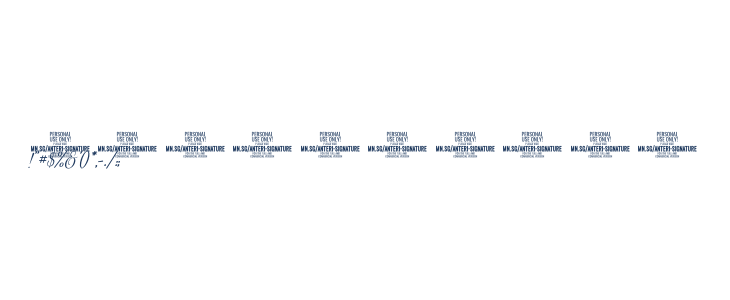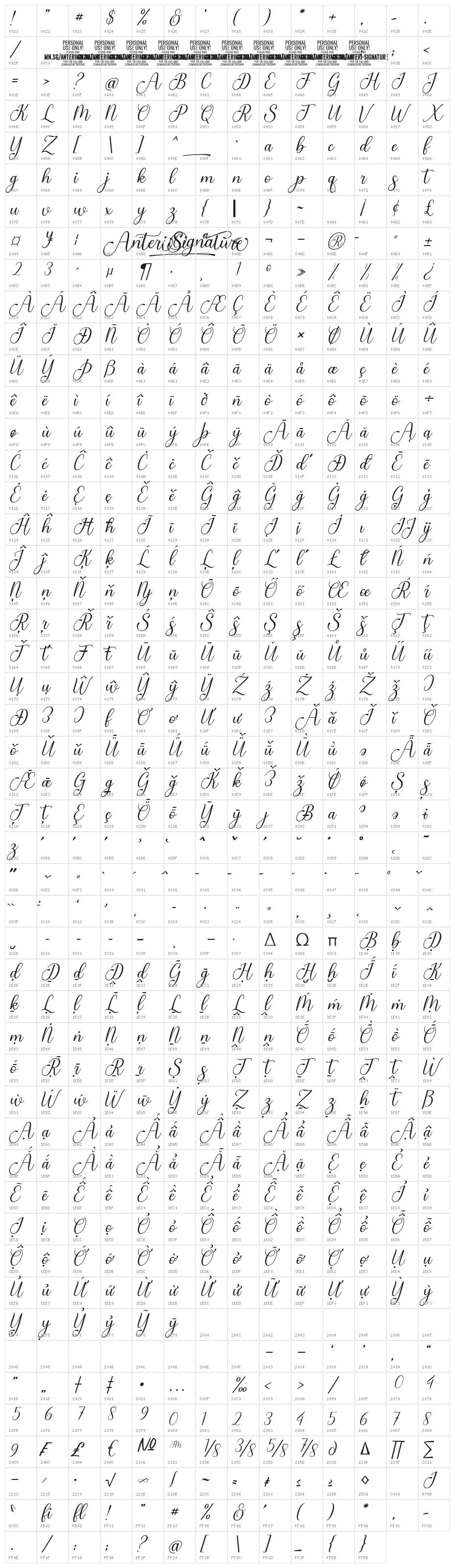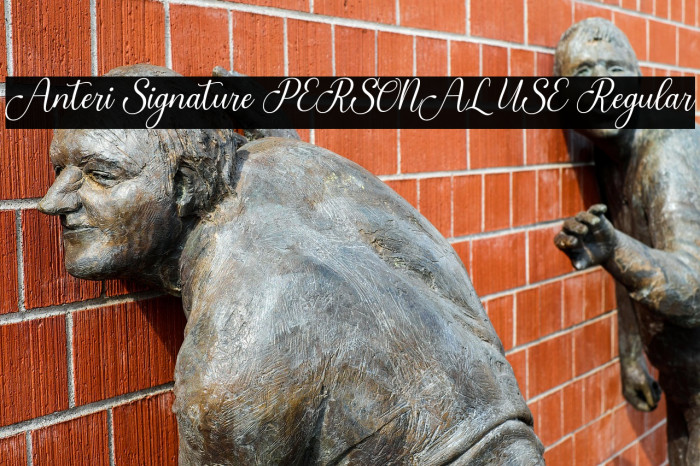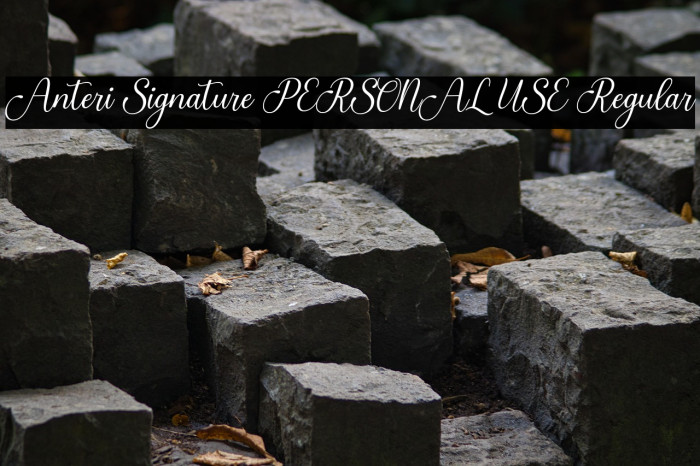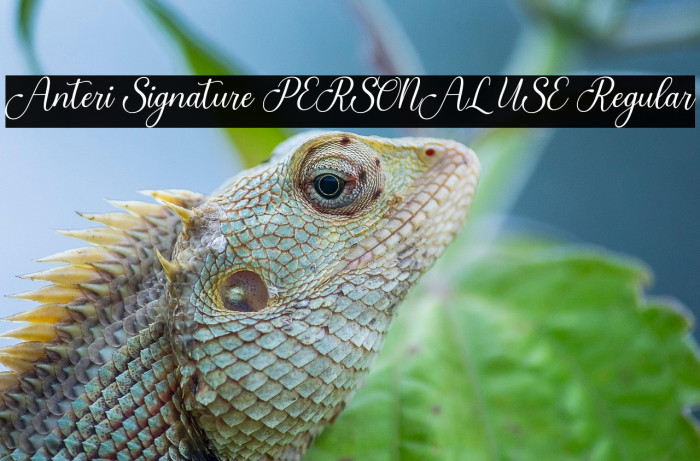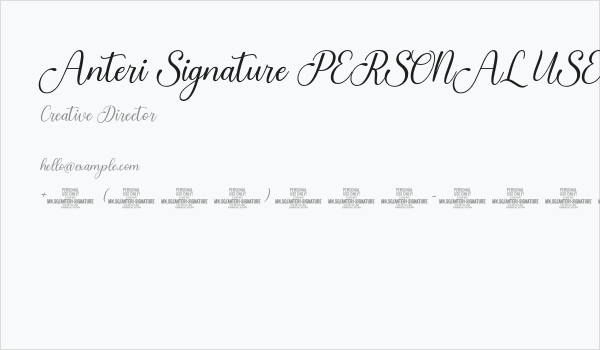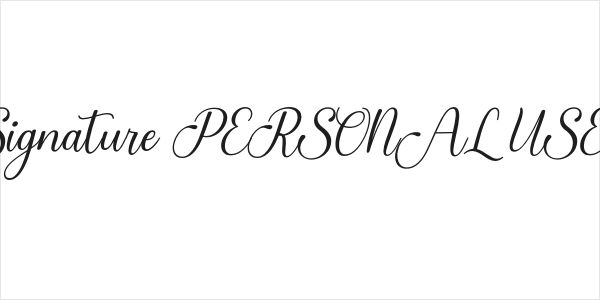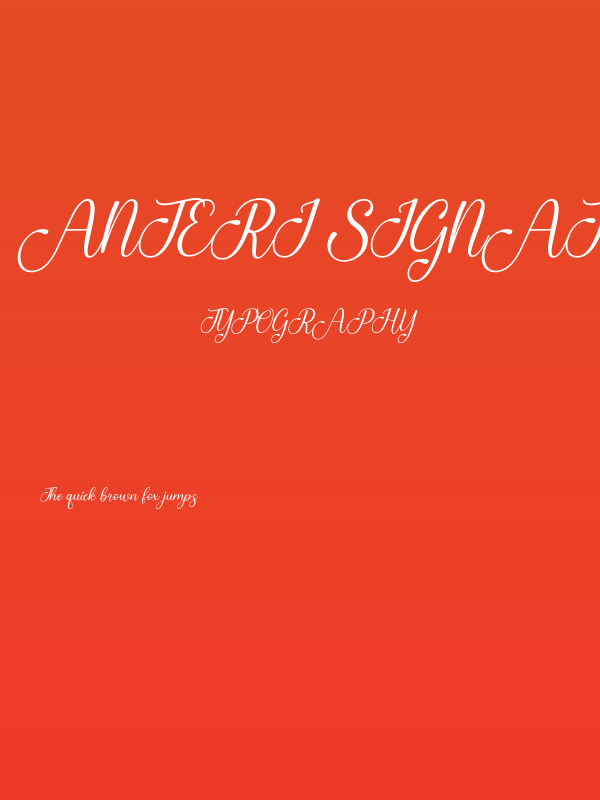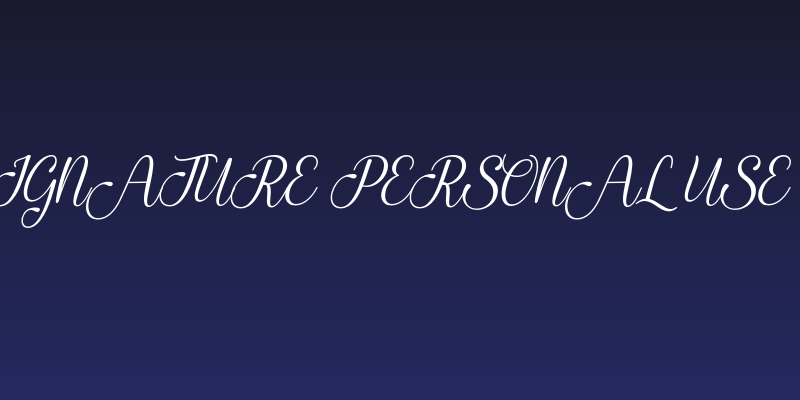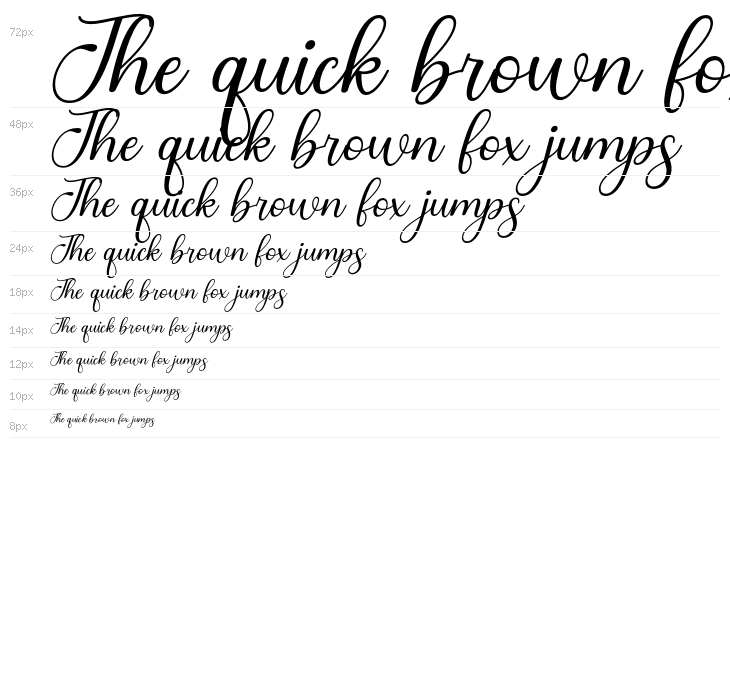
Anteri Signature PERSONAL USE Regular Font
Anteri Signature PERSONAL USE Regular Description
This elegant script font features a flowing, cursive style with smooth, connected strokes that emulate the look of a personal signature. The uppercase letters are slightly more elaborate, with graceful loops and swashes, while the lowercase letters maintain a consistent, fluid motion. The font's design is both sophisticated and approachable, making it ideal for projects that require a personal touch. The numerals and special characters are crafted with the same attention to detail, ensuring a cohesive appearance across all text. The overall aesthetic is modern yet timeless, suitable for a variety of applications.
| Proposed Projects | Ideal for wedding invitations, personal branding, logos, and elegant stationery. |